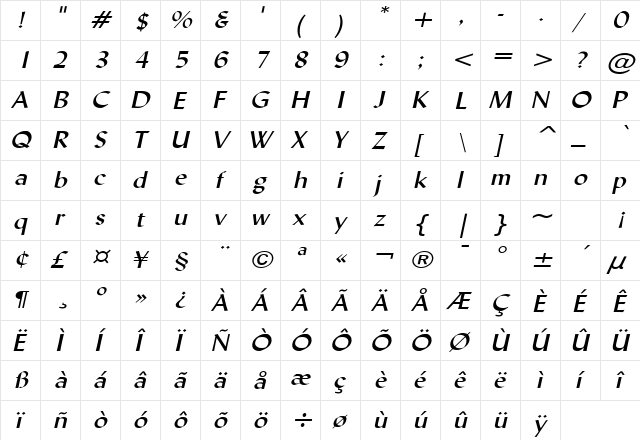
Lynda Wide Italic
Design Context for Lynda Wide Typeface
Lynda Wide is a composed and adaptable typeface that performs quietly and consistently across a wide range of design contexts. The dynamic lean of this cut emphasises speed and emphasis in any layout.
Pro Tip: Use Lynda Wide for emphasis, pull quotes, and subheadings where its slanted energy can add rhythm to the layout.